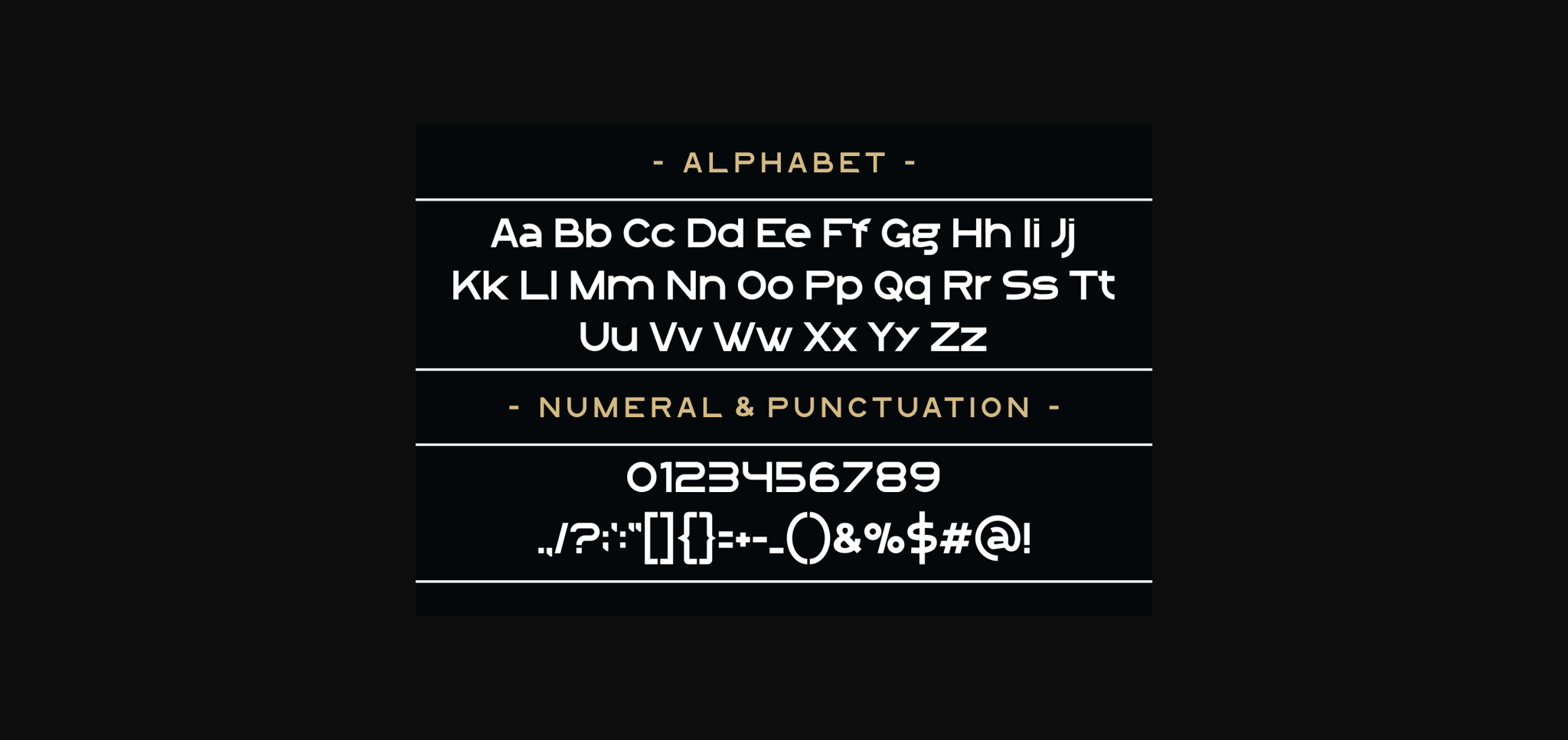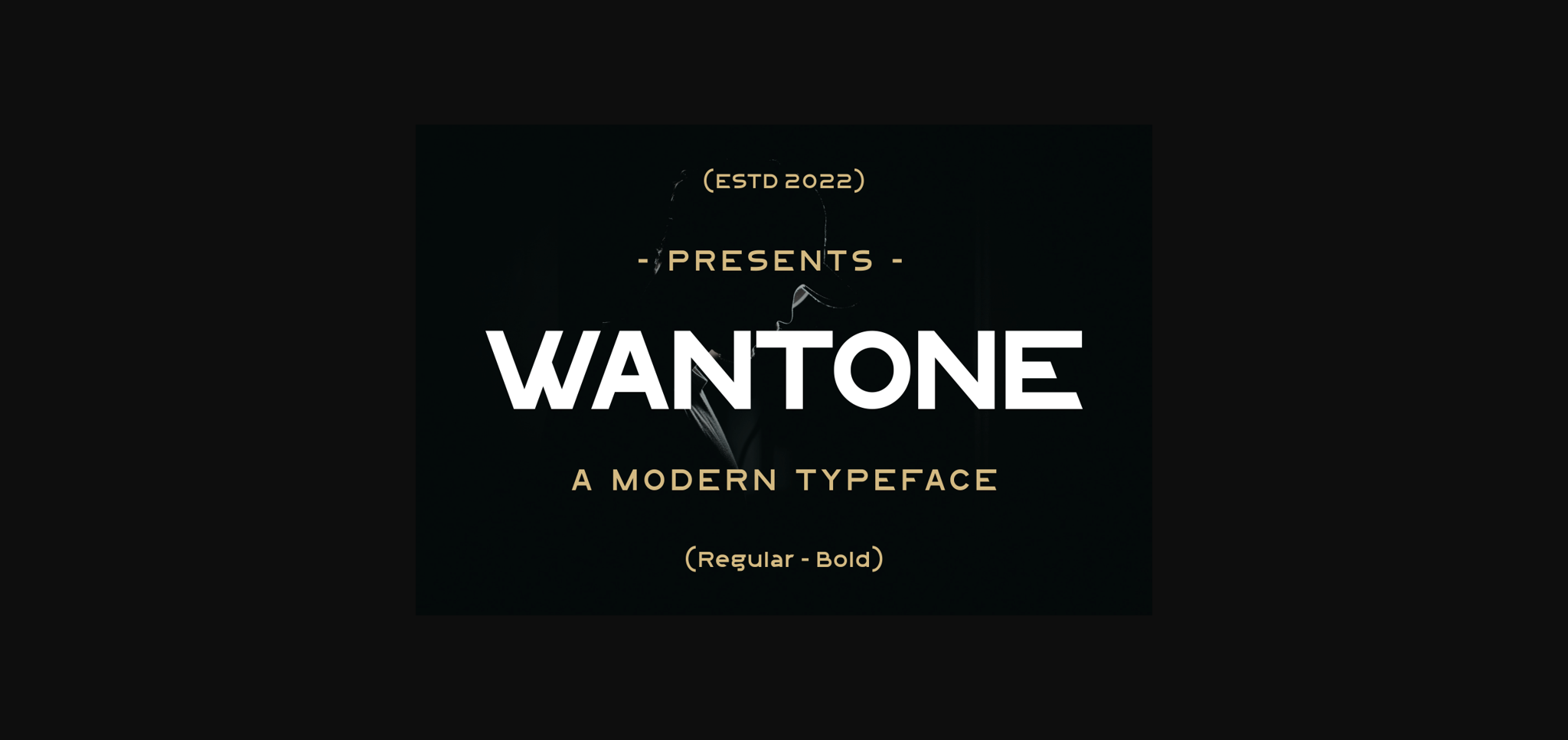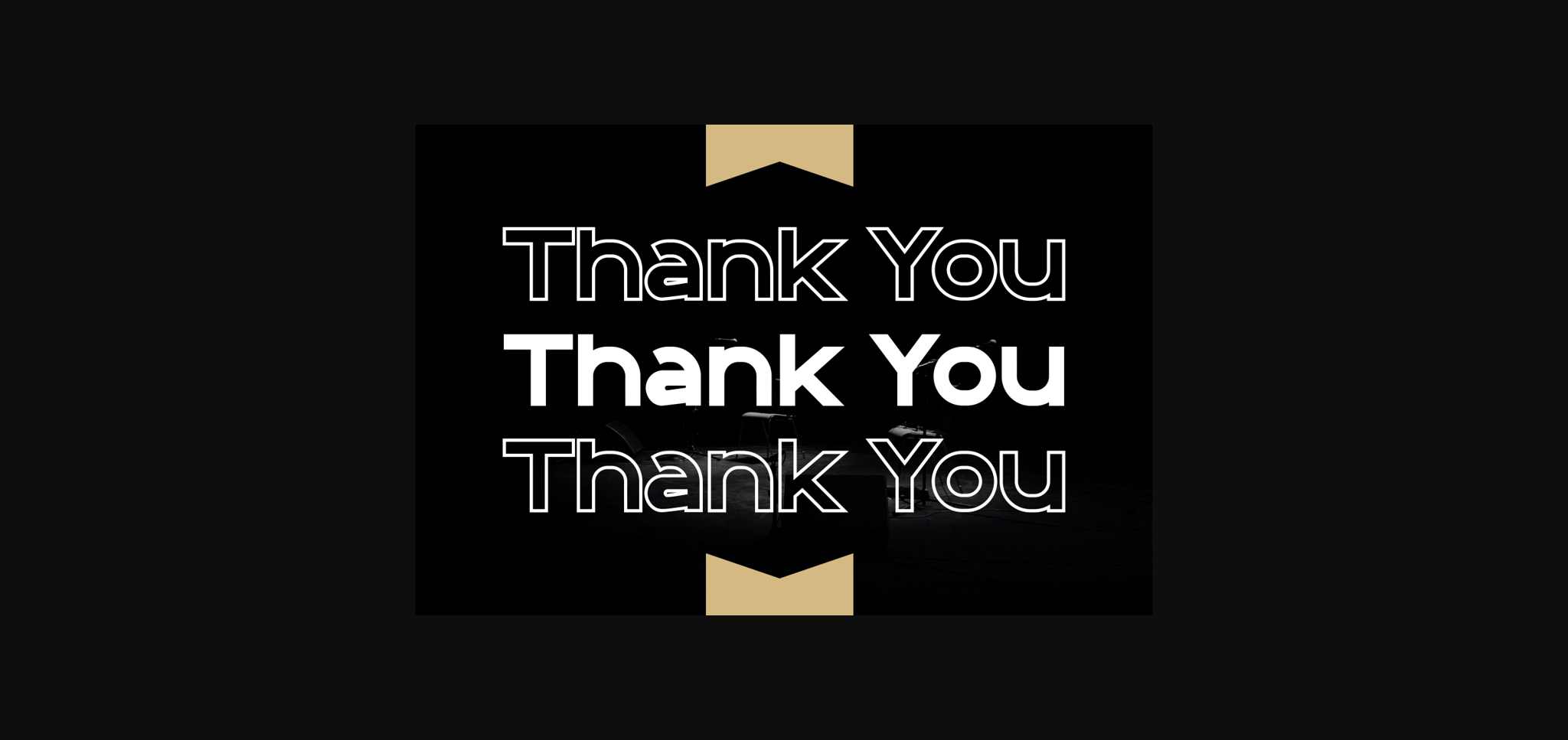
About Wantone Font
Wantone is a bold and authentic sans serif font. The font is suitable for any branding project like logo, t-shirt printing, product packaging, and many more. It will look outstanding in a wide range of contexts.